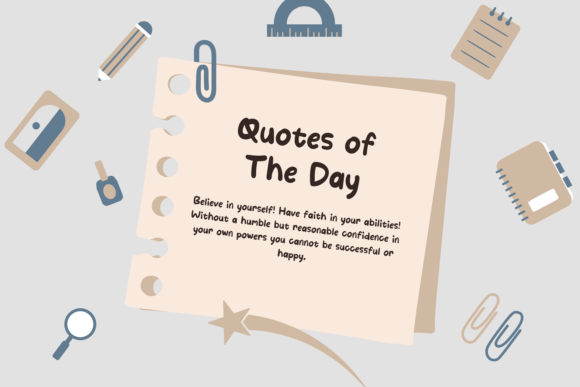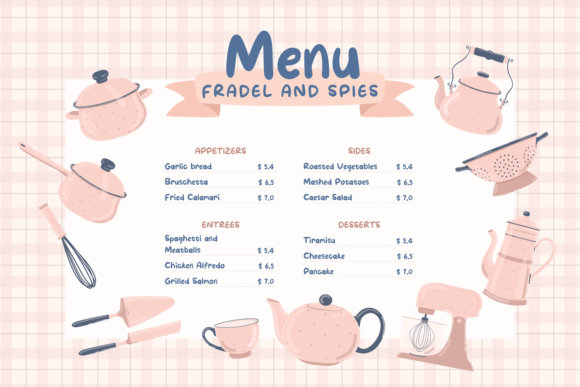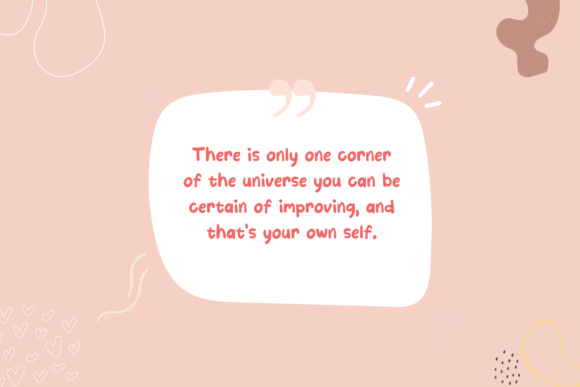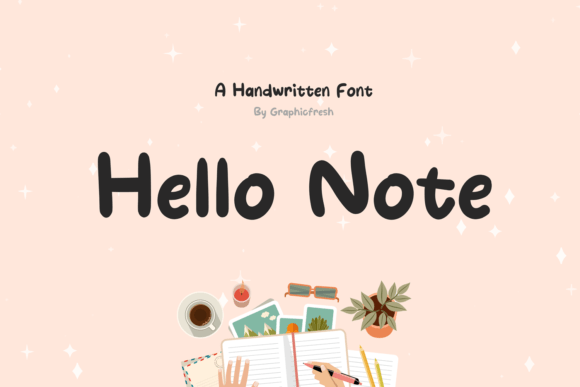
Introduction to Hello Note Font
Hello Note is a cute and fresh handwritten font.
Not too thin and not too thick, balanced and varied, this font was designed to enhance the beauty of your projects .